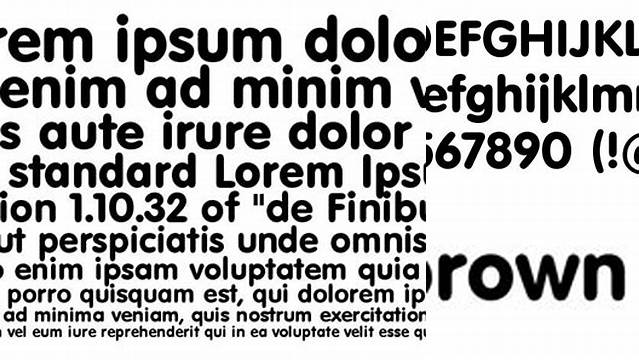
VAG Rounded BT: Free Fonts & Usage Guide
Hey guys! Ever stumbled upon a font that just clicks? That’s how I felt when I first encountered VAG Rounded BT. It’s got this amazing blend of modern simplicity and approachable warmth that makes it a go-to for so many designers. In this article, we're going to dive deep into everything VAG Rounded BT, from its history and characteristics to its best uses and where you can snag it for your own projects. Whether you're a seasoned designer or just starting out, understanding this font can seriously level up your design game.
What is VAG Rounded BT?
Let's kick things off with the basics. VAG Rounded BT is a geometric sans-serif typeface known for its rounded terminals and clean, legible design. Those rounded edges? They're what give it that friendly, approachable vibe. Think of it as the cool kid who's also super nice. This font family is part of the larger VAG Rounded family, but VAG Rounded BT is a specific version designed by Berthold Type Foundry. The “BT” at the end? That simply stands for Berthold Type. Understanding the nuances of this font means appreciating its versatility; it's not just about looking good, it's about communicating effectively. Its origins are fascinating, too, rooted in the practical needs of corporate branding and wayfinding systems, which we'll explore further in the history section. This font isn't just aesthetically pleasing; it's a workhorse that has proven its value across a multitude of applications. When you use VAG Rounded BT, you're not just choosing a font; you're choosing a legacy of design excellence. The clean lines and geometric shapes make it incredibly readable, while the rounded terminals soften the overall appearance, making it less sterile than some other sans-serif options. This balance is key to its widespread appeal and makes it suitable for a diverse range of projects.
The History of VAG Rounded BT
So, where did this iconic font come from? The story of VAG Rounded BT is actually pretty interesting. It was originally designed in 1979 by the Swiss designer Adrian Frutiger and the German designer Albert-Jan Pool. It was commissioned by Volkswagen AG (hence the “VAG” in the name) for use in their corporate identity and signage. Yep, that’s right – this font was created to help a major car manufacturer communicate its brand. The goal was to create a typeface that was both modern and legible, suitable for a wide range of applications from print to signage. Frutiger and Pool nailed it, creating a font that not only met Volkswagen's needs but also resonated with a much broader audience. The rounded terminals were a deliberate choice, intended to convey a sense of friendliness and approachability – qualities that Volkswagen wanted to associate with their brand. The font's success within Volkswagen led to its wider release and adoption by other companies and designers. It’s a testament to the power of well-designed typography that a font created for a specific corporate purpose could become such a global phenomenon. Think about it: a font designed for car dashboards and brochures now graces websites, posters, and countless other mediums. That’s pretty impressive, right? The history of VAG Rounded BT highlights the importance of understanding the context in which a typeface was created. Knowing the original intent and purpose can help you make more informed decisions about when and how to use it in your own projects. It’s not just about aesthetics; it’s about communication and branding. The font’s legacy is a powerful reminder that thoughtful design can have a lasting impact, shaping how we perceive brands and information.
Key Characteristics of VAG Rounded BT
Okay, let’s get into the nitty-gritty details. What makes VAG Rounded BT so special? First off, those rounded terminals are a defining feature. They soften the overall appearance of the font, making it feel less rigid and more inviting. This is a key characteristic that sets it apart from other geometric sans-serif typefaces, which often have sharp, angular terminals. The font also boasts a relatively high x-height, meaning the lowercase letters are tall in proportion to the uppercase letters. This contributes to its excellent legibility, especially in body text. You know how some fonts look great in headlines but become a bit of a strain to read in longer paragraphs? VAG Rounded BT doesn’t have that problem. Its clean, simple shapes make it easy on the eyes, even at smaller sizes. Another important characteristic is its geometric construction. The letters are based on simple geometric forms like circles and rectangles, giving it a consistent and harmonious appearance. This geometric foundation also contributes to its modern feel. It’s a font that looks like it belongs in the 21st century, even though it was designed in the late 20th. The balance between geometric precision and rounded softness is what makes VAG Rounded BT so versatile. It can be used in a wide range of contexts, from corporate branding to editorial design. Its neutral yet friendly character makes it a safe bet for projects where readability and approachability are paramount. Understanding these key characteristics will help you appreciate the nuances of VAG Rounded BT and use it effectively in your own design work. It’s not just about choosing a font that looks good; it’s about choosing a font that communicates the right message.
Where to Use VAG Rounded BT
Now, let's talk practical applications. Where does VAG Rounded BT really shine? Given its history and characteristics, it’s a fantastic choice for corporate branding. Think logos, websites, and marketing materials. Its clean, modern look projects professionalism and trustworthiness, while the rounded edges add a touch of warmth and approachability. It's like saying,